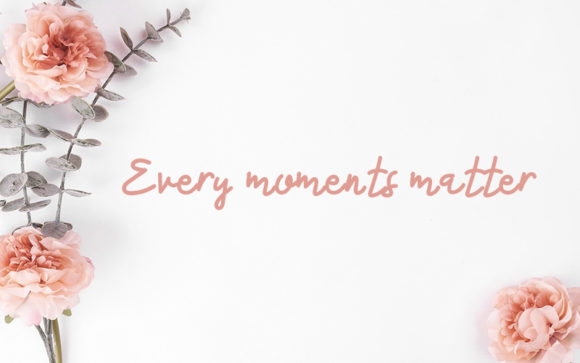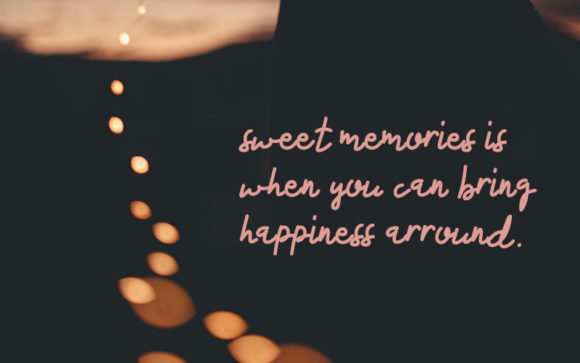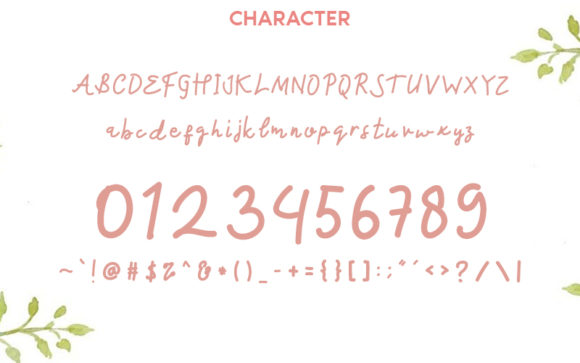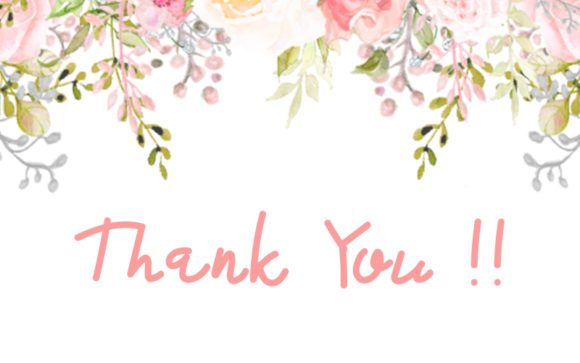
Bring Your DIY Projects to Life with a Dash of Quirk
Have you ever found yourself lost in a sea of ideas, desperately searching for the perfect font to bring your DIY project to life? You’re not alone! We’ve all been there – staring at a blank page, scrolling through font options, and hoping to stumble upon that one special something that captures the essence of our creative vision.
Enter Bersamamu Ceria Font – a gorgeous, unique handwritten font that’s sure to add a touch of whimsy and personality to any project. With its playful, quirky feel, Bersamamu Ceria Font is the perfect addition to your design toolkit. Whether you’re crafting a handmade card, designing a custom logo, or simply adding a personal touch to a DIY project, this font is sure to bring a smile to your face and a touch of magic to your design.
As a designer, you know the importance of choosing the right font to convey your message and evoke the right emotions. Bersamamu Ceria Font is a valuable addition to any designer’s arsenal, offering a fresh and creative way to express yourself and bring your ideas to life.
Bersamamu Ceria Font Key Features
- Font Family: A unique and playful font family designed for various applications, including digital and print media.
- Font Size: The font family is available in multiple weights, ranging from Thin (100) to Black (900), allowing for flexibility in design and typography.
- Resolution: Optimized for high-resolution displays, making it suitable for use in digital media, such as websites, social media, and mobile apps.
- Language Support: Supports multiple languages, including Latin-based languages, making it a versatile choice for global applications.
- Unique Characteristics: Features a distinctive and cheerful aesthetic, with rounded shapes and friendly letterforms, making it ideal for creating engaging and approachable designs.
Bersamamu Ceria Font Review
Overall, I was excited to dive into the Bersamamu Ceria font, but my experience was a mixed bag. Here’s what I found.
- The font has a playful, energetic feel that’s perfect for creative projects and branding.
- The letterforms are well-crafted, with a nice balance of curves and straight lines.
- The font is highly legible, even at smaller sizes.
- The font’s aesthetic may not be for everyone – it’s quite bold and eye-catching, which might not suit more conservative or traditional designs.
- The font’s character set is limited, which may not be ideal for projects that require a wide range of languages or special characters.
While the Bersamamu Ceria font has some great qualities, its limitations may make it less appealing to some designers. If you’re looking for a bold, playful font for a creative project, this might be a good choice. However, if you need a more versatile or affordable option, you may want to consider other options.
Bersamamu Ceria Font is ideal for creating playful and creative designs, such as:
1. Social media graphics and ads.
2. Party invitations and event materials.
3. Children’s books and educational materials.
4. Branding and marketing materials with a fun and
Alternatives to Bersamamu Ceria Font
Lato is a clean and modern sans-serif font that is perfect for creating a professional and elegant look. It is highly legible and works well for both body text and headings. Lato is a great alternative to Bersamamu Ceria Font for designers who want a more classic and timeless look.
Comparison: Lato has a more traditional feel compared to Bersamamu Ceria Font’s playful and casual vibe. Lato is also more versatile and works well in a wider range of applications.